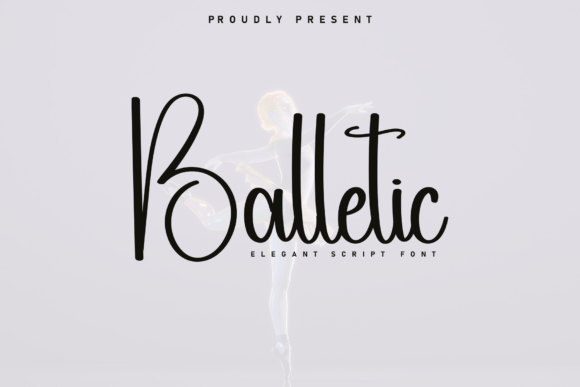
The Perfect Blend of Elegance and Casualness
Have you ever been in a design rut, staring at a blank page, waiting for inspiration to strike? For many of us, it’s that moment of creative blockage when we realize we need something fresh to get our juices flowing again. That’s when the magic happens – and for designers, it’s often the discovery of a new font that can elevate their work to the next level.
Enter the Balletic Font, a beautiful handwritten font that’s as stylish as it is versatile. This charming font, reminiscent of a marker-drawn design, is perfect for adding a touch of luxury and elegance to your branding, logos, wedding supplies, and more. Its relaxed and sporty feel makes it a valuable asset for designers who want to create a sense of sophistication without sacrificing a casual vibe.
Balletic Font Key Features
- Font Family: Balletic, Balletic Bold, Balletic Italic, Balletic Bold Italic
- Unique Characteristics: Elegant, refined, and sophisticated design with flowing lines and subtle curves, ideal for luxury brands and high-end applications
Balletic Font Review
Overall, I think the Balletic Font has some great qualities that make it suitable for certain designs. ✨ One of the things that stands out to me is its elegant and refined feel, which is perfect for high-end fashion or luxury brands. The font’s subtle flair and fluid curves make it feel sophisticated and polished.
- ✨ Elegant and refined feel
- ✨ Suitable for high-end fashion or luxury brands
- ✨ Subtle flair and fluid curves
However, I do have some concerns about the font’s limitations. ⚠️ The main issue I have is that the font can feel a bit too delicate for certain uses, such as headlines or titles. It may get lost in busy compositions or compete with other design elements. Additionally, the font’s style may not be suitable for all types of brands or audiences.
- ⚠️ May feel too delicate for headlines or titles
- ⚠️ May get lost in busy compositions or compete with other design elements
- ⚠️ May not be suitable for all types of brands or audiences
Overall, I think the Balletic Font is a solid choice for designers looking for a refined and elegant font, but it may not be the best fit for all projects or brands. With careful consideration and use, it can be a valuable addition to a designer’s toolkit.
Getting the Most Out of Balletic Font
To get the most out of Balletic Font, use it in combination with bold or italic text to create emphasis.
Also, experiment with different font sizes and colors to create visual interest.
Balletic Font is commonly used for:
- Body text in creative projects
- Logo design and branding
Alternatives to Balletic Font for Designers
Pacifico is a beautiful, elegant script font that is perfect for creating a sophisticated and luxurious feel in your designs. It features a mix of classic and modern elements, making it suitable for various design projects, including invitations, wedding designs, and luxury branding.
Compared to Balletic Font, Pacifico has a more refined and polished look, while Balletic Font has a more modern and edgy feel. Pacifico is ideal for designs where you want to convey elegance and sophistication, whereas Balletic Font is better suited for modern and trendy designs.
Great Vibes is a modern script font that is perfect for creating a fun and playful feel in your designs. It features a mix of cursive and handwritten elements, making it suitable for various design projects, including social media graphics, event invitations, and branding materials.
Compared to Balletic Font, Great Vibes has a more casual and relaxed look, while Balletic Font has a more modern and edgy feel. Great Vibes is ideal for designs where you want to convey a fun and energetic vibe, whereas Balletic Font is better suited for modern and trendy designs.